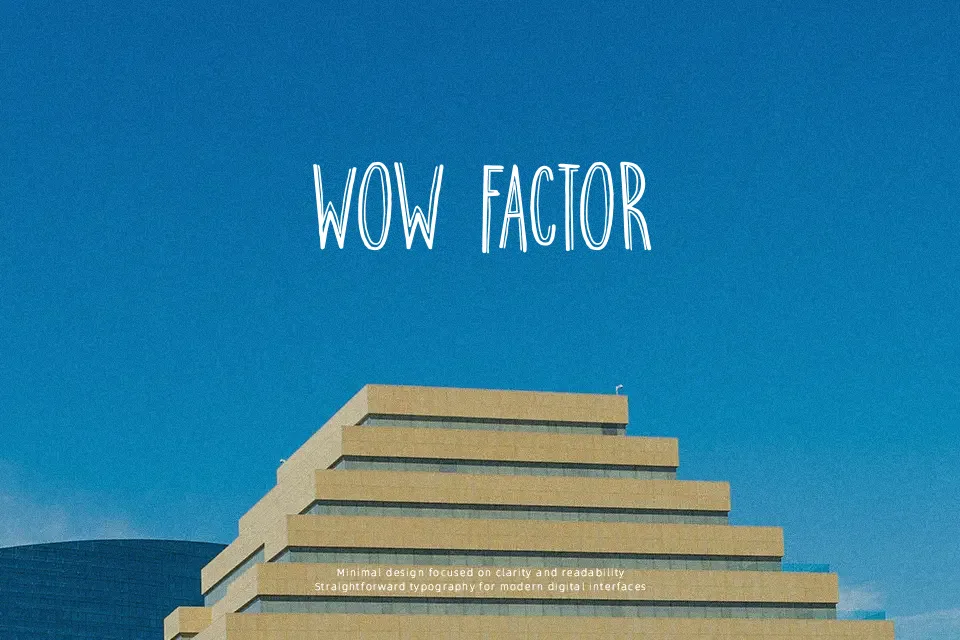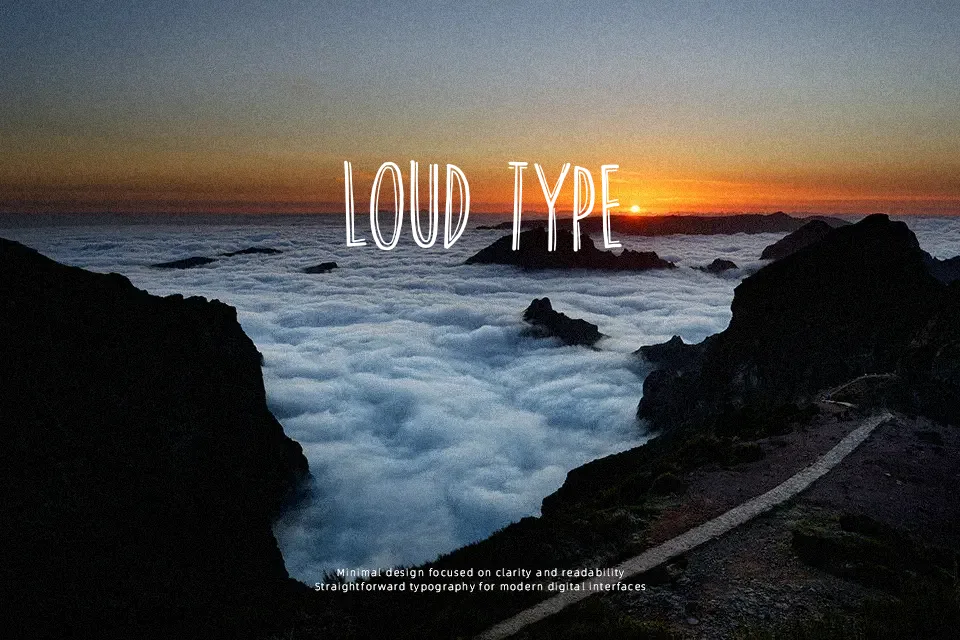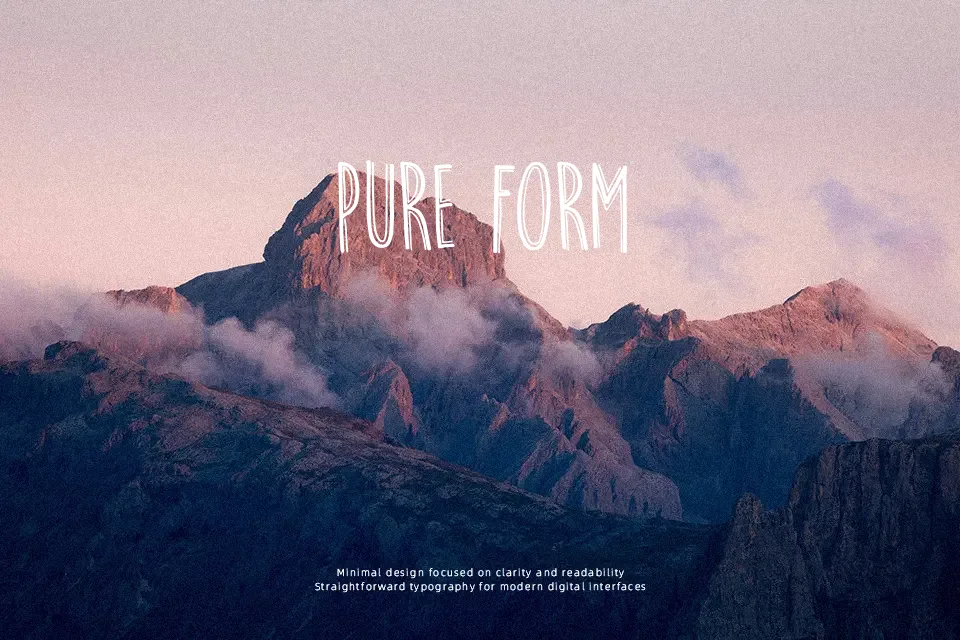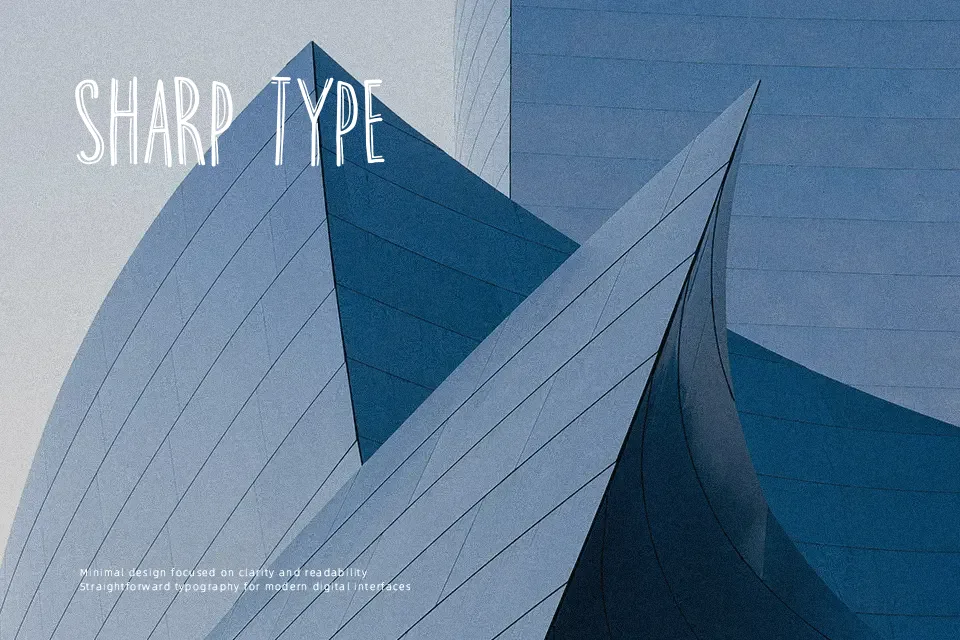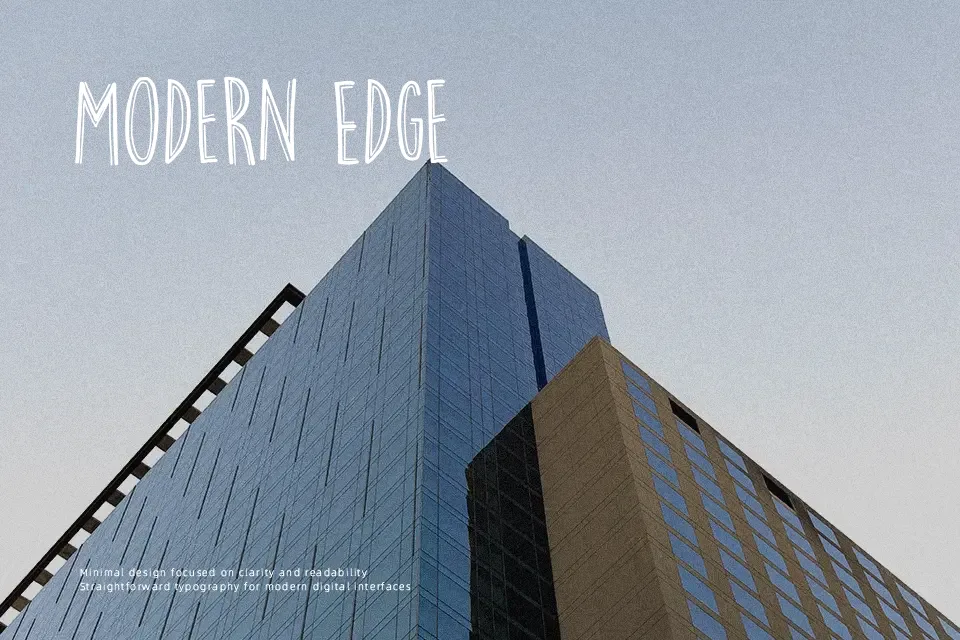
DK Breakfast Burrito Font
DK Breakfast Burrito Font has a lanky handwritten structure with thin strokes, upright forms, and generous spacing that keeps each letter easy to spot at display size. The texture feels casual and slightly imperfect, which gives it a friendly, handmade voice rather than a polished retail finish. It works nicely on café signage, takeaway packaging, menu headers, and informal quote graphics where a relaxed tone helps. For branding aimed at children or lighthearted food projects, it can add charm without becoming too loud. It is less convincing in compact layouts, formal identities, or anything that needs strong readability at small sizes.
cafe menu headers,food packaging labels,playful social posts,casual poster titles
body text,formal branding,small interface labels,dense editorial layouts
Perfect for headline, packaging, and poster, with a creative and decorative style.